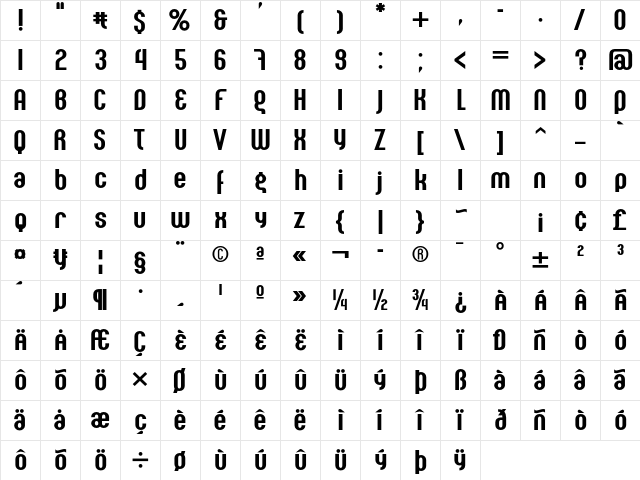
Seebad LT Std Bold
Designer: Silvan Kaeser
Design Context for Seebad LT Std
Seebad LT Std is a composed and adaptable typeface that performs quietly and consistently across a wide range of design contexts. Its bold stroke weight gives it real presence on the page.